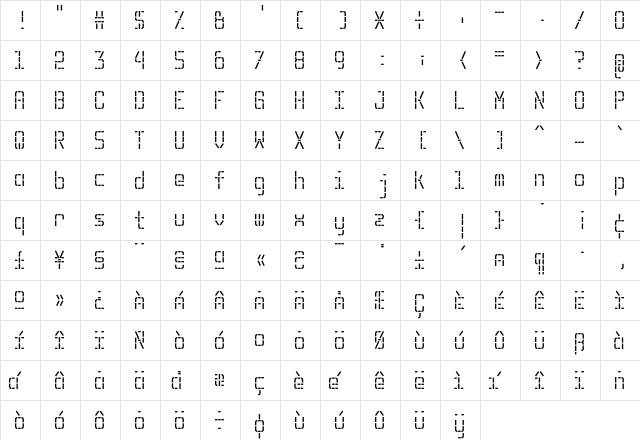
Luggagetag Two
Design Context for Luggagetag Typeface
Luggagetag takes a measured approach to typography — its balanced proportions and neutral character make it a reliable workhorse for both digital and print work.